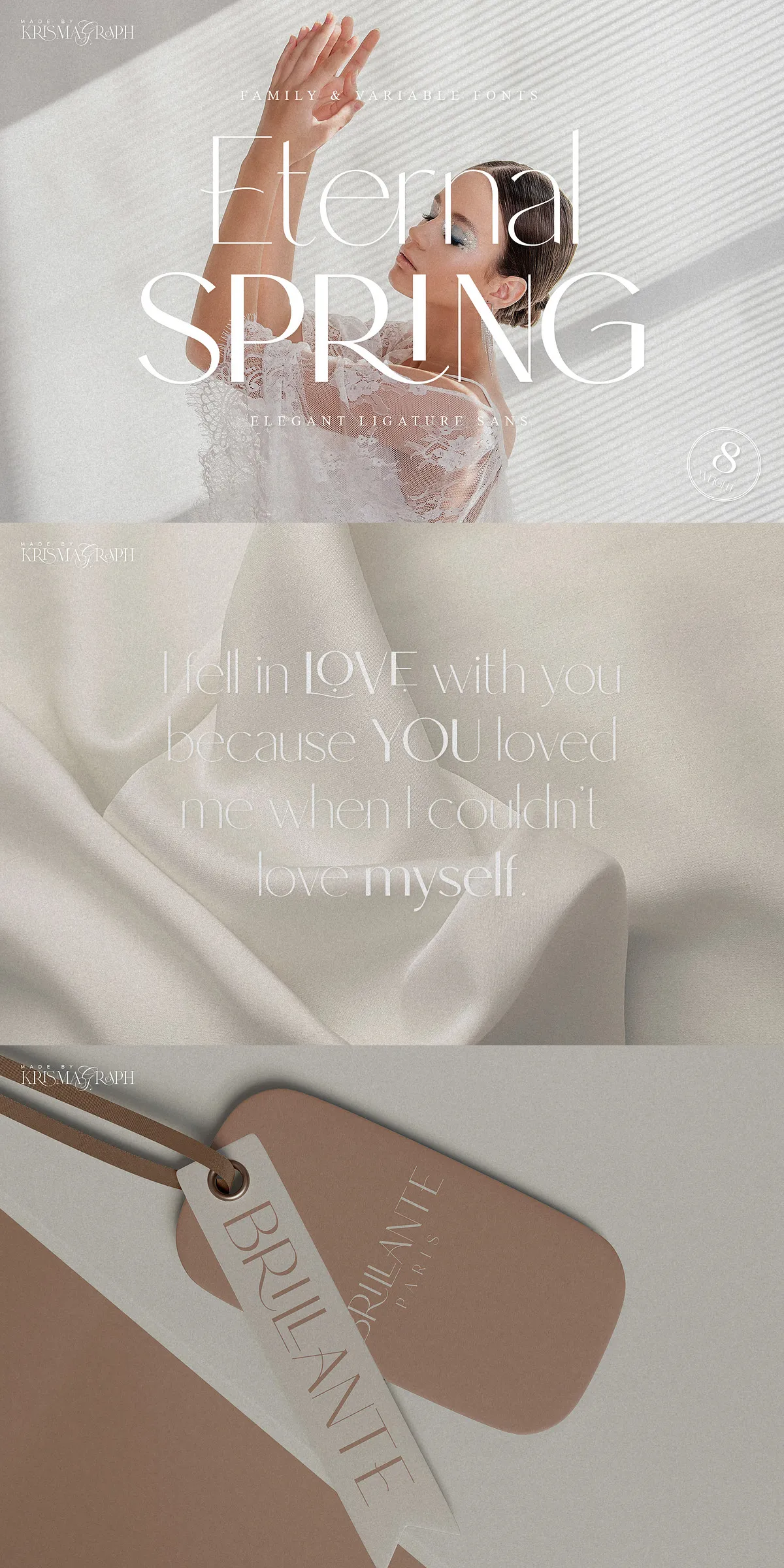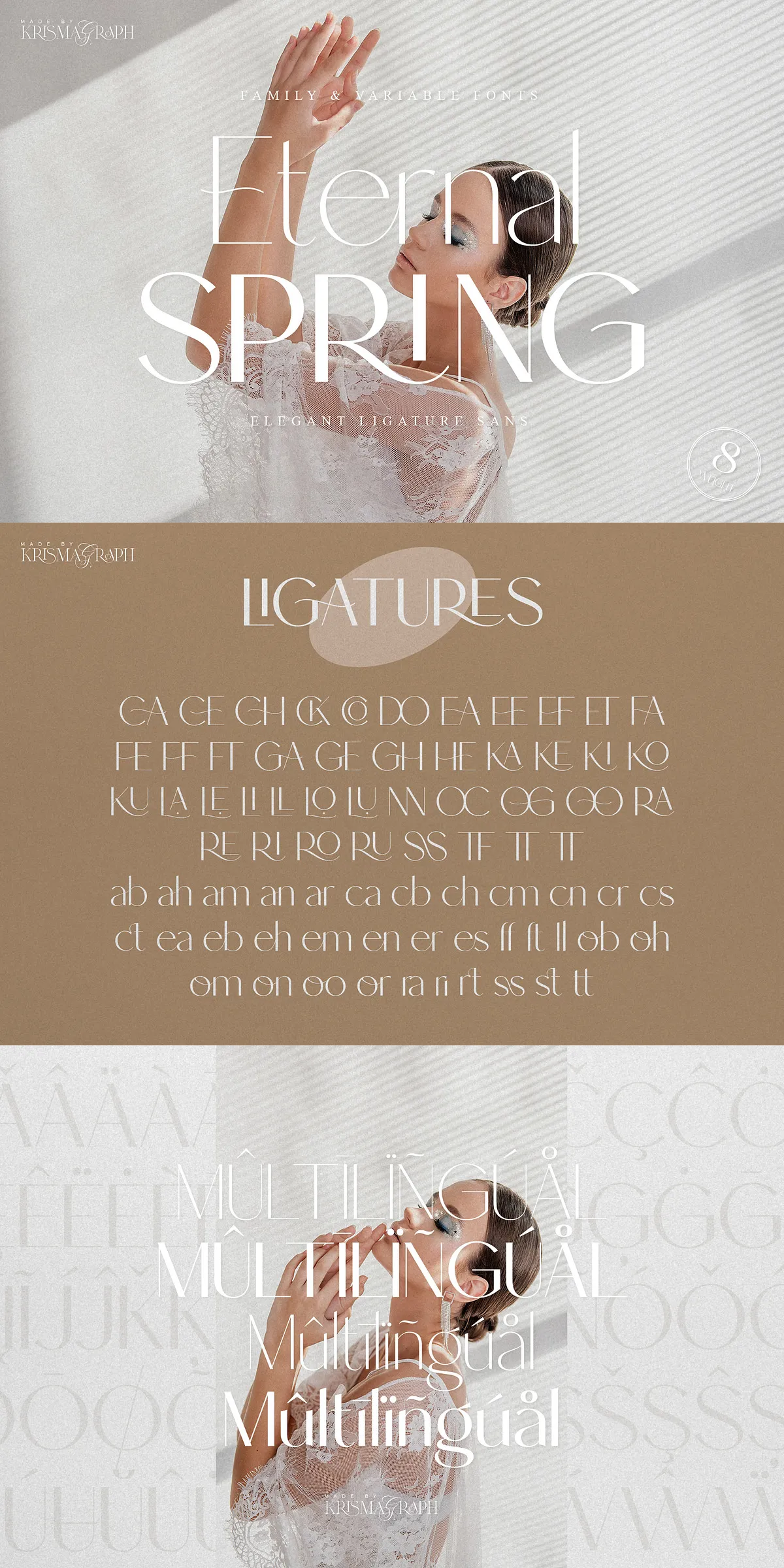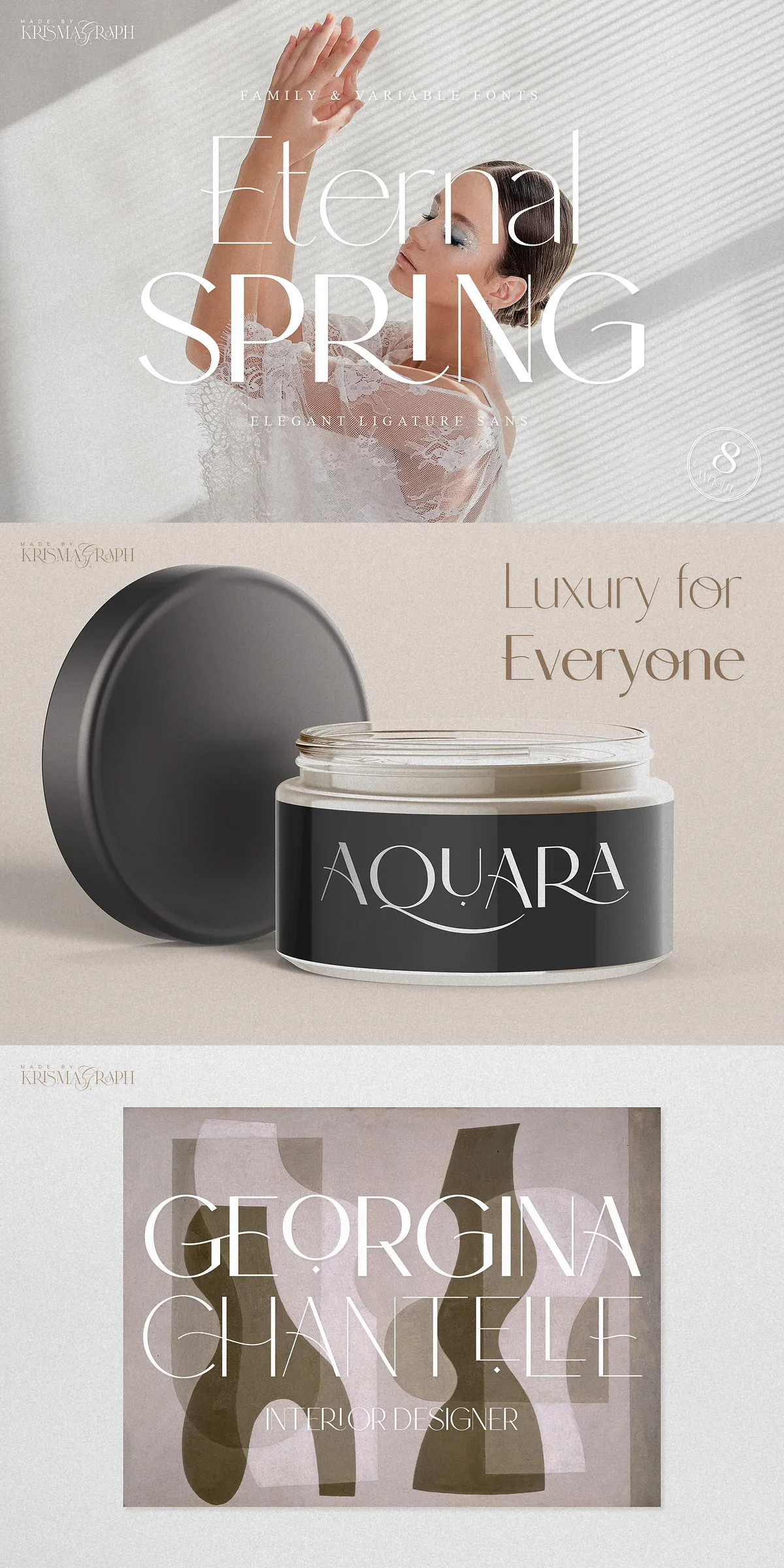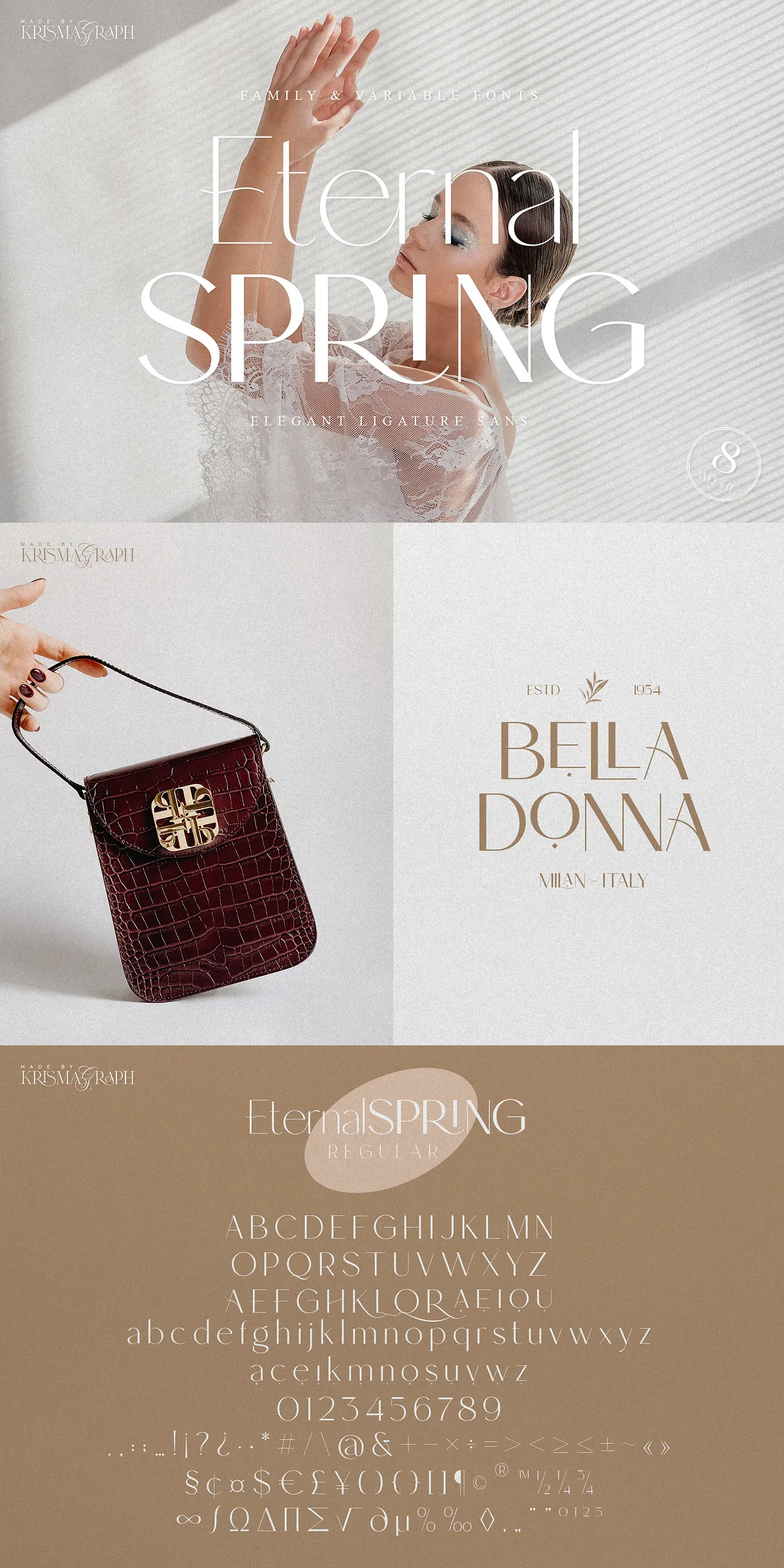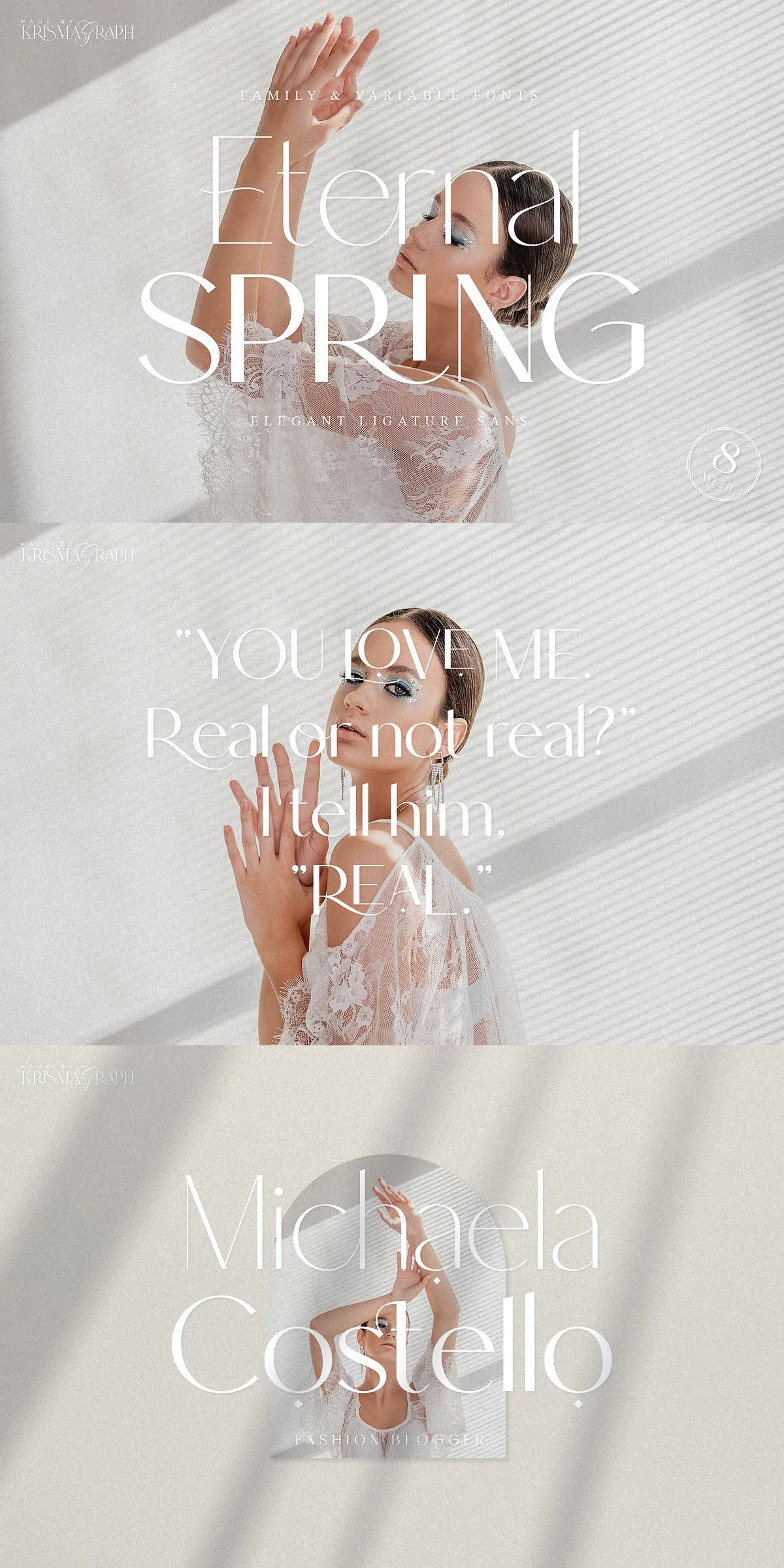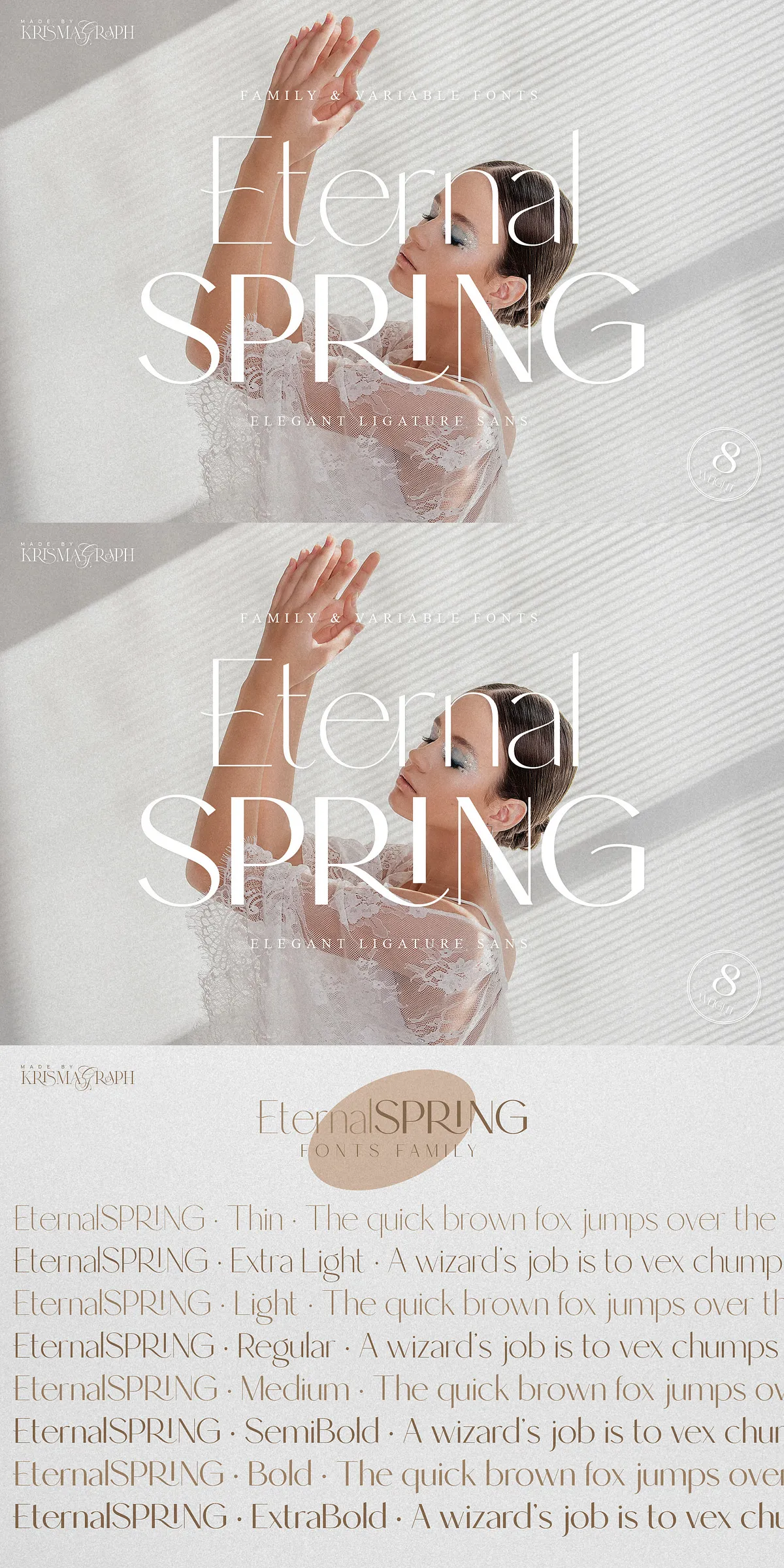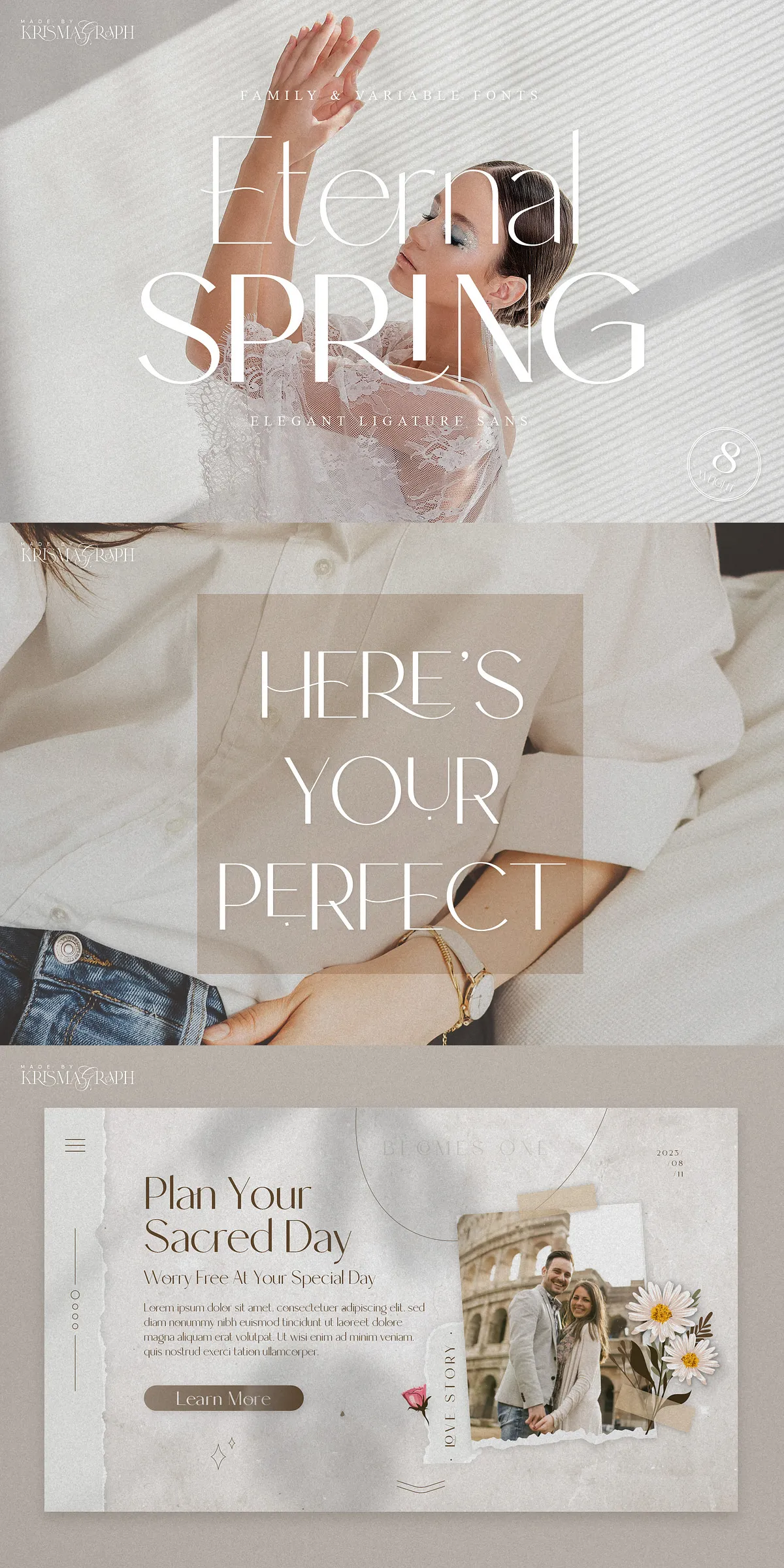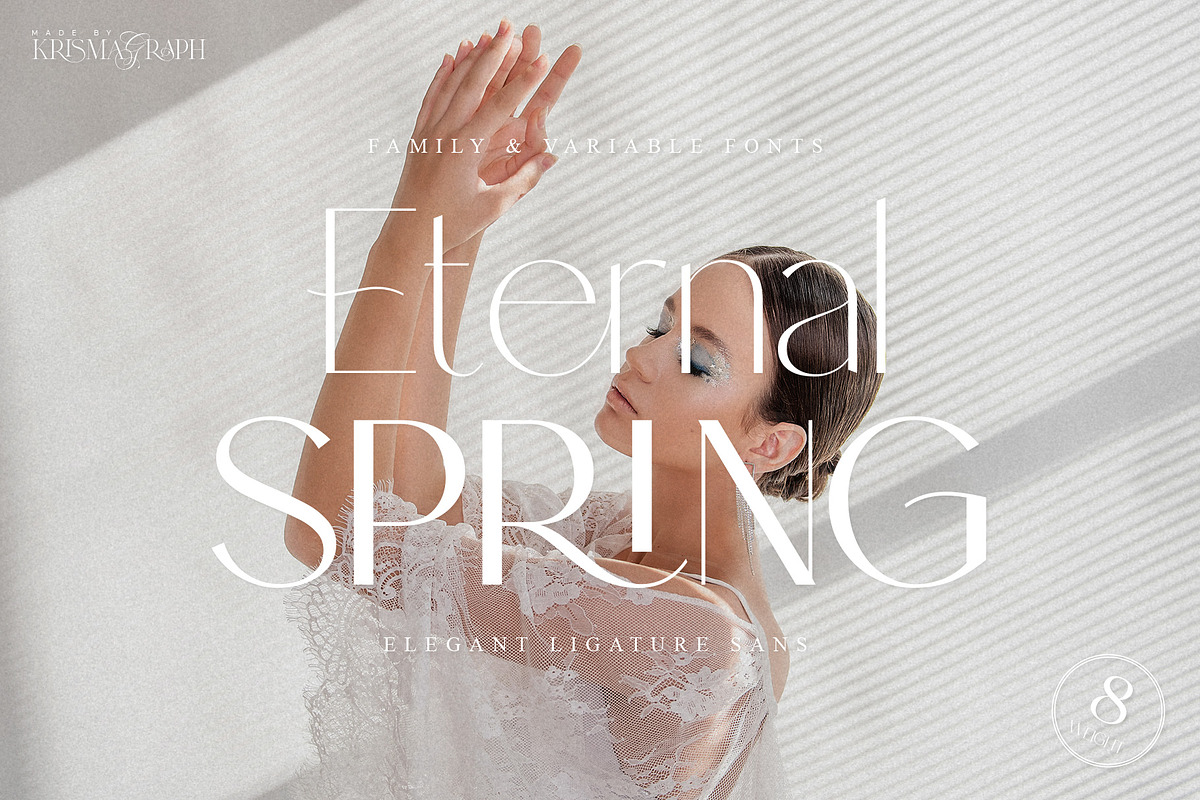
Eternal Spring | Elegant Sans Family
Eternal Spring is a highly versatile and elegant sans serif font family designed to bring modern sophistication and clarity to any design project. Featuring 8 distinct weights ranging from Thin to ExtraBold, including a variable font option, it offers a rich toolkit for designers seeking balance between style and function. Its design showcases a high contrast glyph structure, combining feminine grace with masculine strength, making it incredibly adaptable for varied creative uses. Whether you aim to captivate attention with bold headlines or maintain legibility in body text, Eternal Spring delivers superior visual appeal with ease.
Extensive Weight Range for Complete Design Control
Eternal Spring spans a wide spectrum of weights, from delicate Thin strokes to powerful ExtraBold styles. This extensive range allows designers to craft harmonious typographic hierarchies that guide viewer attention effectively. The inclusion of a variable font further enhances customization, enabling smooth weight transitions without switching font files. This flexibility is particularly valuable for responsive designs where different device screen sizes demand typographic adjustments. By leveraging these options, creators can achieve a cohesive yet dynamic visual language throughout their projects.
Rich Set of Ligatures and Alternates for Unique Typography
One of the standout features of Eternal Spring is its collection of 76 unique ligatures and 27 stylistic alternates. These carefully crafted glyph variations enhance typographic flow and add personality to text, elevating ordinary lettering into sophisticated design elements. Ligatures improve readability by seamlessly connecting characters, while alternates provide creative avenues to customize the font’s appearance without sacrificing consistency. This enriched character set empowers designers to develop custom branding identities or compelling editorial layouts that resonate with their audience.
Comprehensive Character Support and Multilingual Capabilities
Eternal Spring fully supports a complete alphabet with both uppercase and lowercase letters, numbers, fractions, punctuation, and symbols, making it a well-rounded typeface for diverse typographic needs. It also includes multilingual support to accommodate an international audience, ensuring that clients’ messages maintain integrity across languages and scripts. This broad linguistic coverage eliminates compatibility issues and streamlines global projects by providing a consistent typographic tone worldwide.
Perfect for Display and Body Text Applications
This font family excels as a multipurpose typeface suitable for both display and text use. Its high contrast glyphs make it particularly effective for eye-catching headings, logos, magazine titles, and product packaging where visual impact is paramount. Simultaneously, Eternal Spring maintains excellent readability for body text, quotes, or extended print layouts. This rare balance between aesthetic allure and legibility makes it an essential resource for print designers, web developers, and brand strategists alike.
Seamless OpenType Features and Easy Usage
Eternal Spring comes equipped with robust OpenType features that simplify the design process. Accessing alternates, ligatures, and stylistic sets is intuitive with modern design software, allowing designers to experiment freely without technical hindrance. The font’s straightforward installation and compatibility with popular platforms ensure smooth workflow integration, saving valuable production time. These user-friendly attributes make Eternal Spring accessible to both novice and experienced typographers.
Ideal Usage Scenarios and Industry Applications
Eternal Spring’s sophisticated styling and functional versatility make it suitable for a wide array of applications. It thrives in professional logo design, contemporary branding projects, high-end editorial layouts, fashionable invitations, and cutting-edge product packaging. Its clean yet distinctive visual presence enhances both digital and print media, allowing brands to build memorable identities that engage viewers emotionally and intellectually. Designers looking for a reliable yet expressive font family will find Eternal Spring a powerful tool in their creative arsenal.